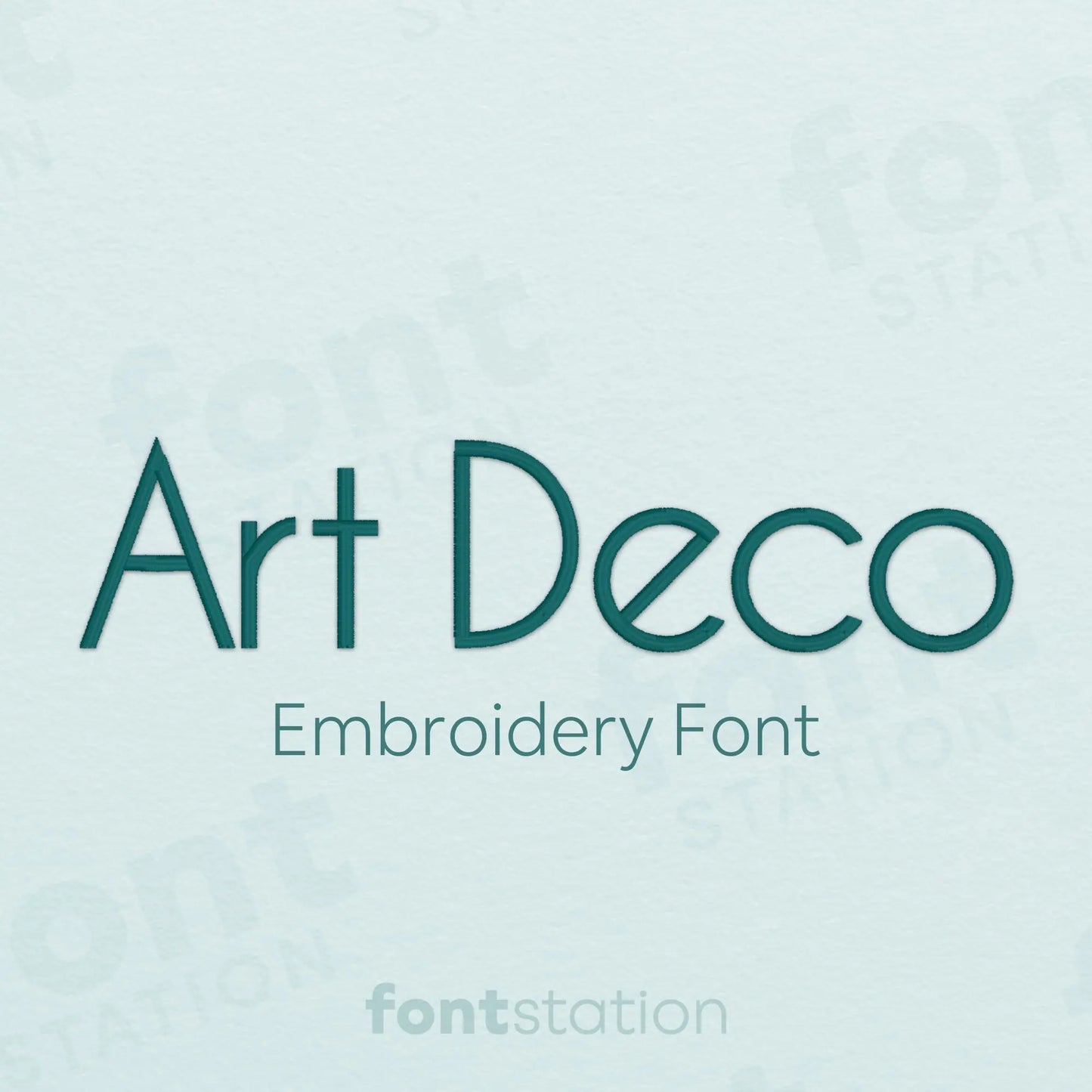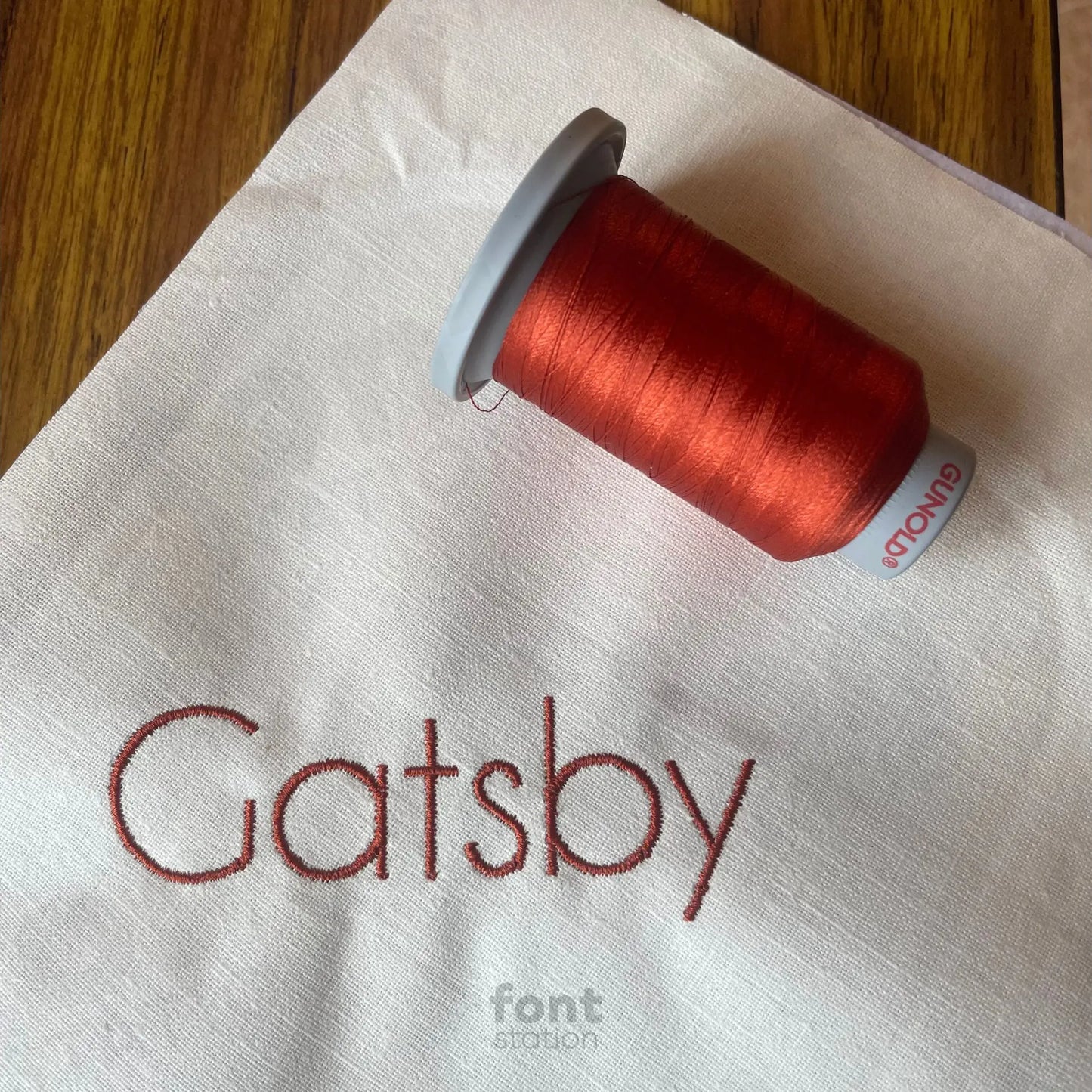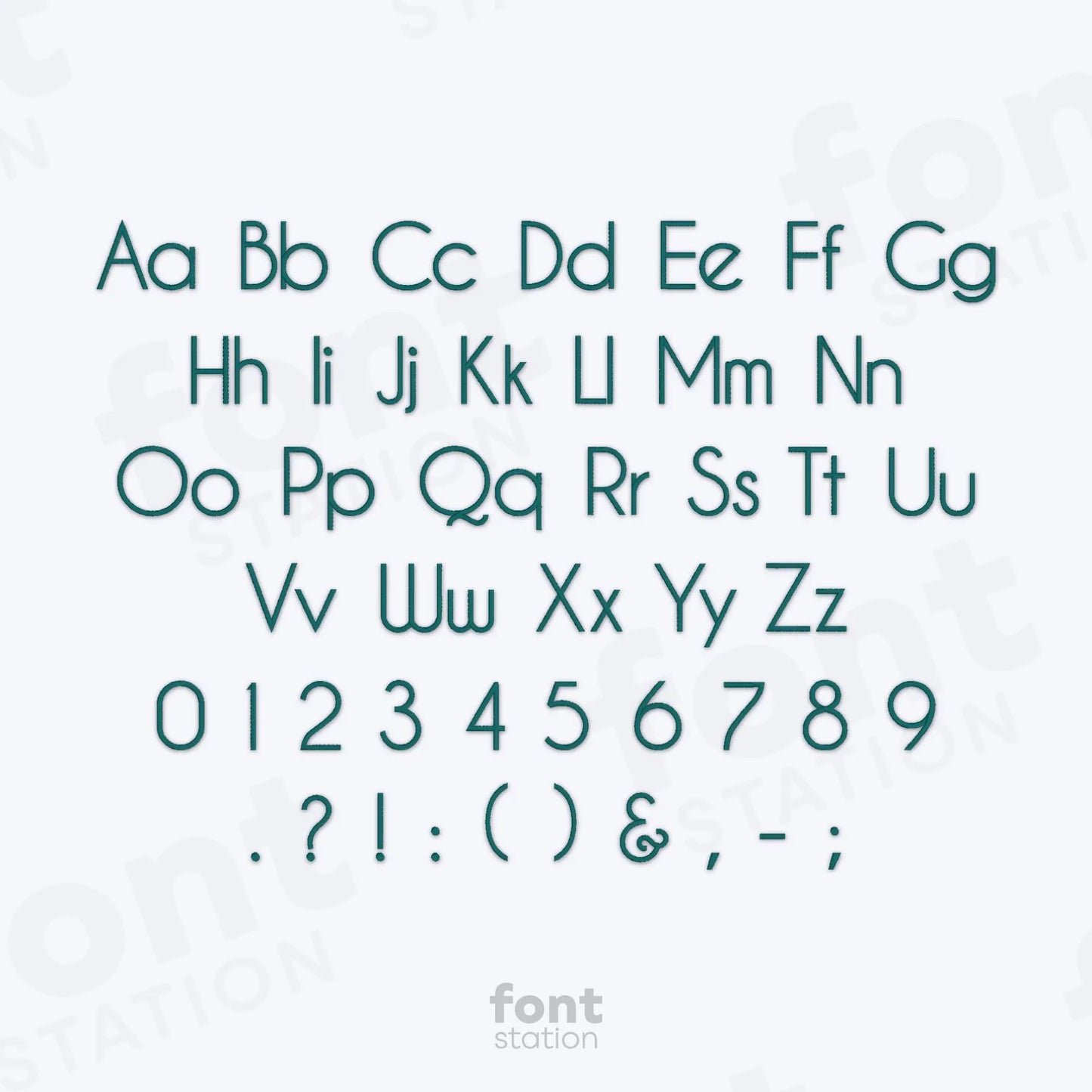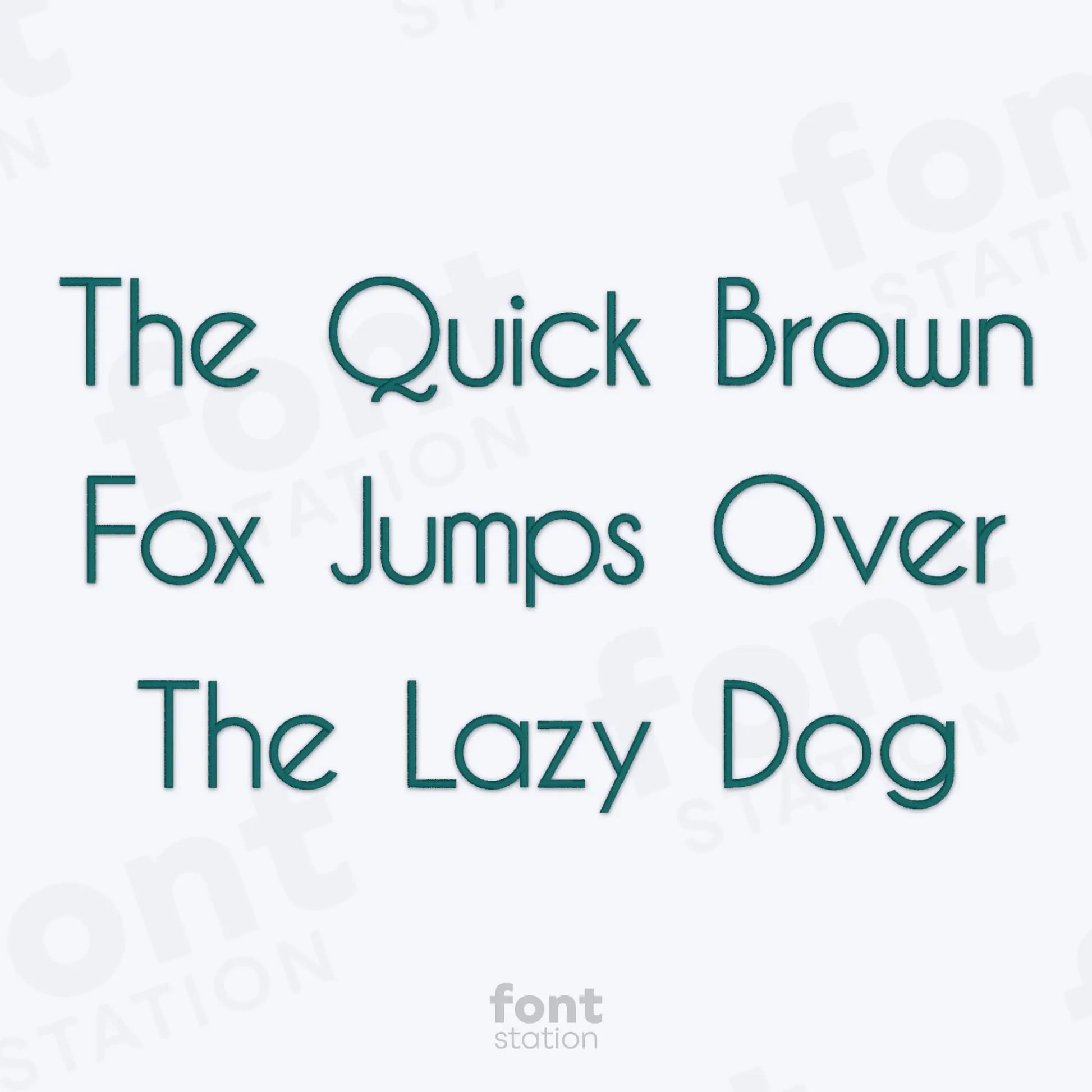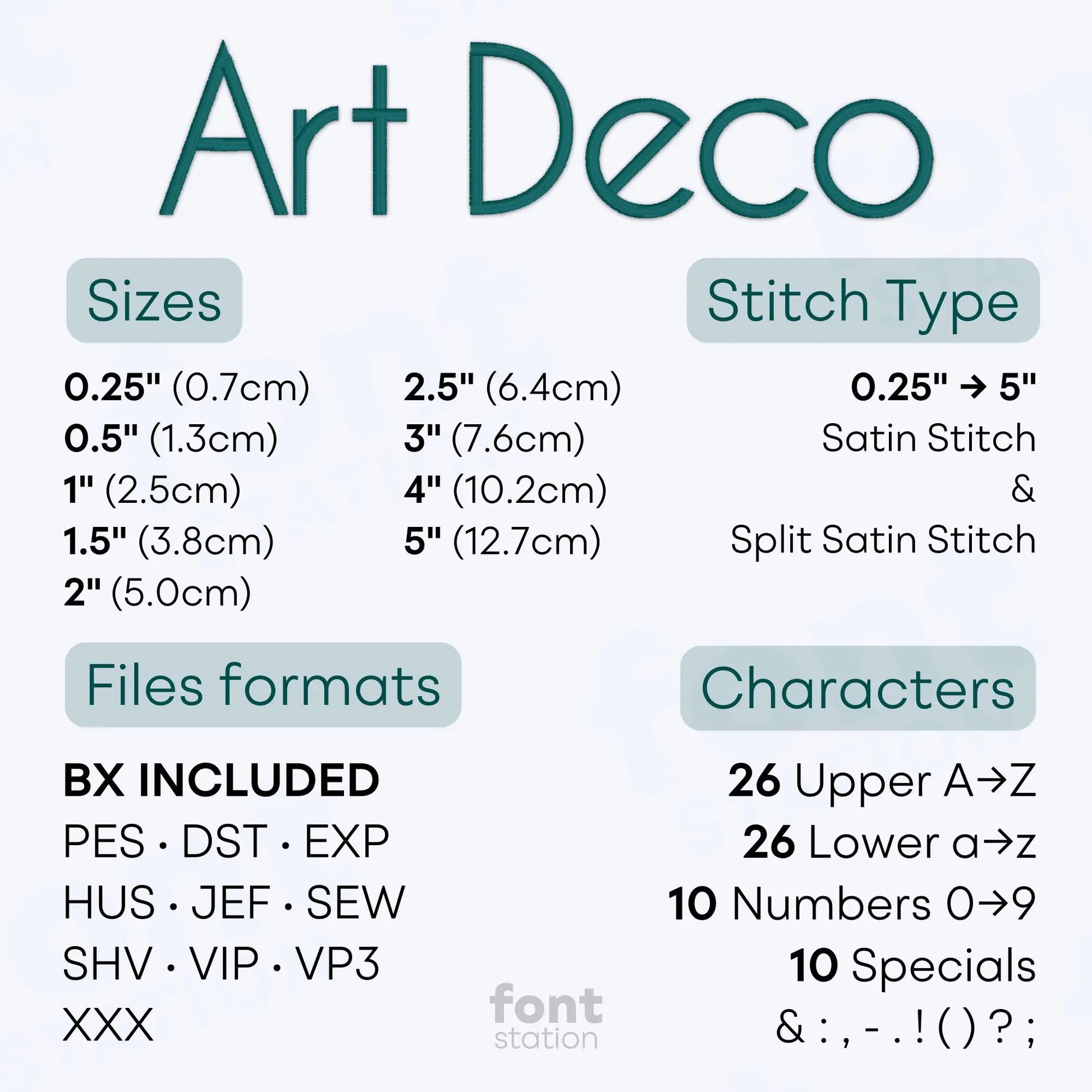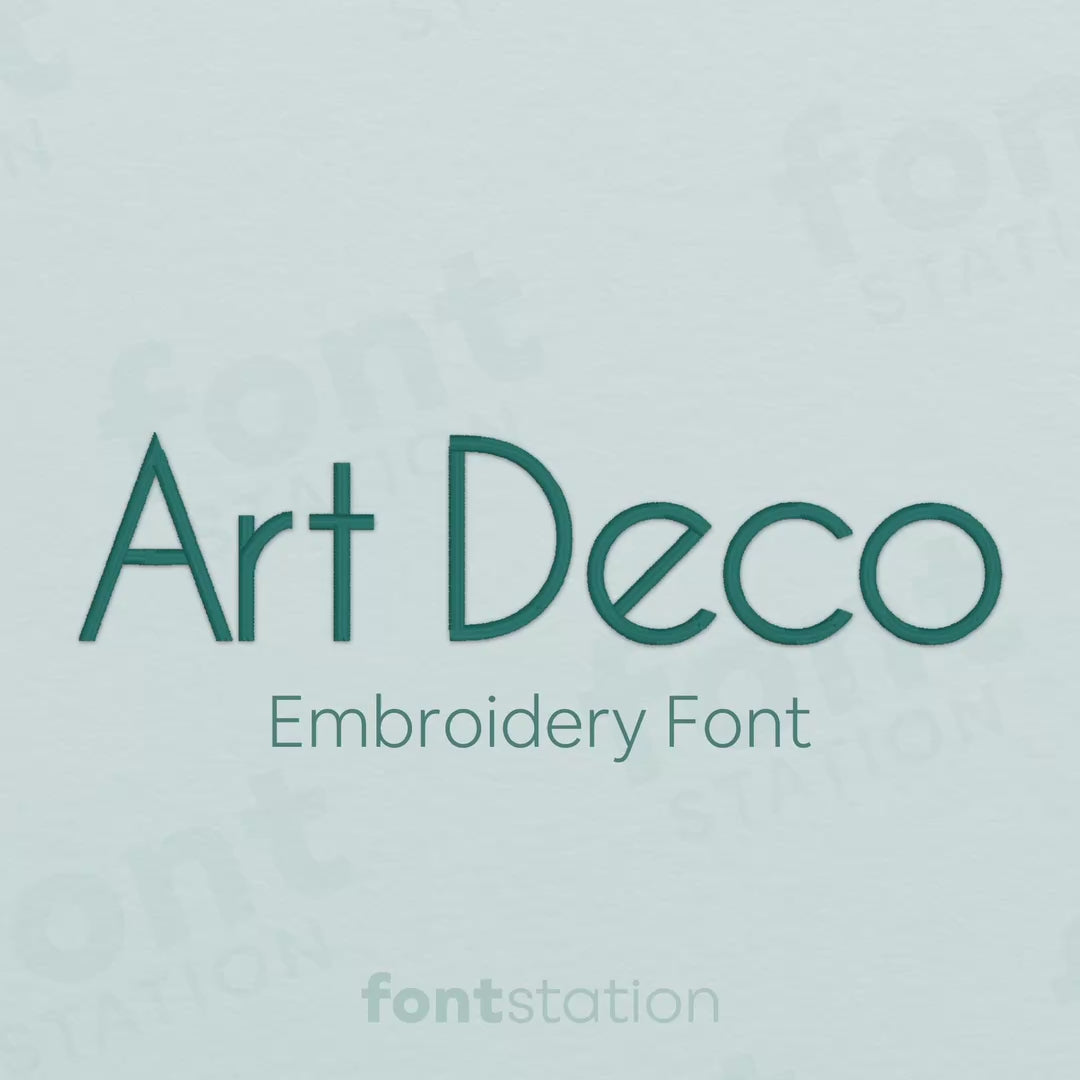
Art Deco Embroidery Font
Introducing our Art Deco embroidery font, a vintage-inspired alphabet with elegant, refined letters that stitch beautifully on your embroidery machine. Perfect for Gatsby-style designs and any retro project.
About the Art Deco Embroidery Font
Our Art Deco embroidery font brings a glamorous Gatsby-style elegance and retro sophistication to your embroidery projects.
This stylish machine embroidery font features a geometric Art Deco alphabet inspired by vintage and Gatsby-era design, perfect for luxury monograms, event decor, fashion labels, and retro-inspired creations. With its sharp lines and balanced proportions, these embroidery letters add a timeless, sophisticated look to every stitch.
Why choose our Gatsby Embroidery Letters?